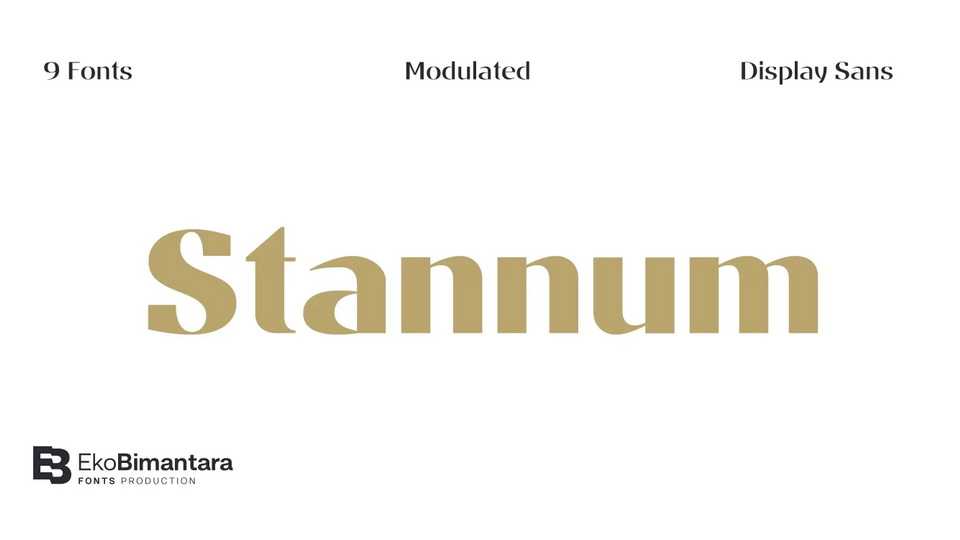
Download Stannum typeface, a high contrast modulated display sans serif font family. Stannum enriched by letterforms that shown a simple, classic and elegant impression.